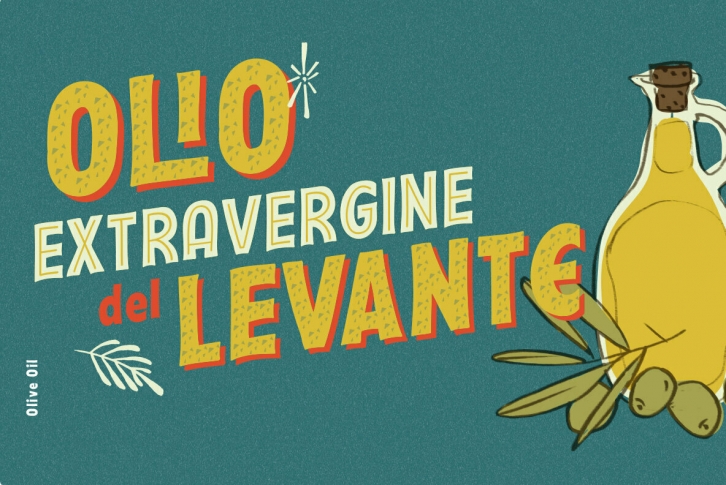
Pesto Fresco is a new handwritten lettering system, a font family built by 28 fonts. Based on Screenprint technique, the aim is to get a textured result we can see in many old poster specially designed to be produced with that technology, bringing analog to digital. Overlapping Pesto Fresco Regular with any of the other decorative fonts you will get different graphic effects, so just choose the one fits better with your layout. This font can be used for different purposes from packaging design to web design.
Pesto Fresco flags are inspired by the typical products from the Italian Riviera in Liguria Region, homeland of Pesto, Focaccia and many other delicious delicatessen.